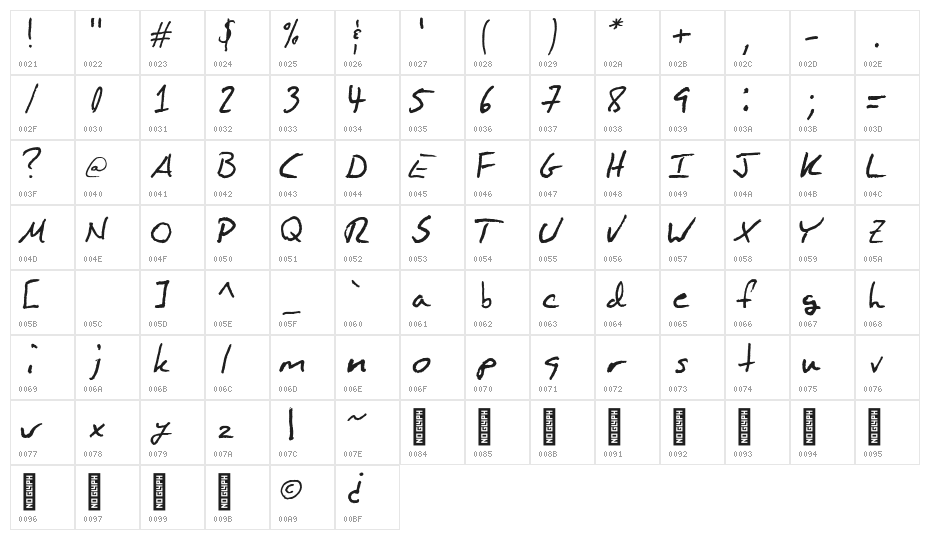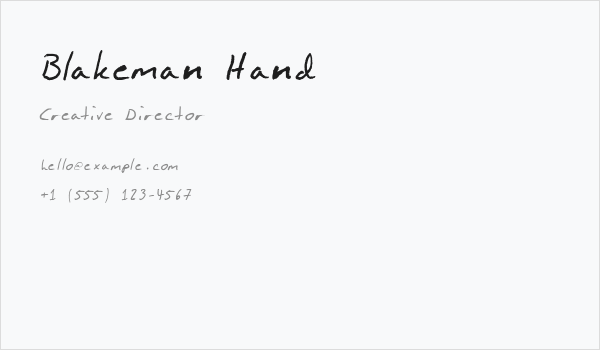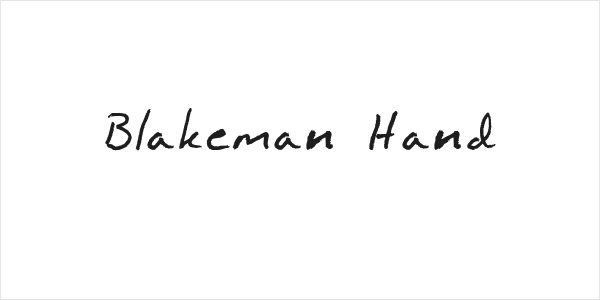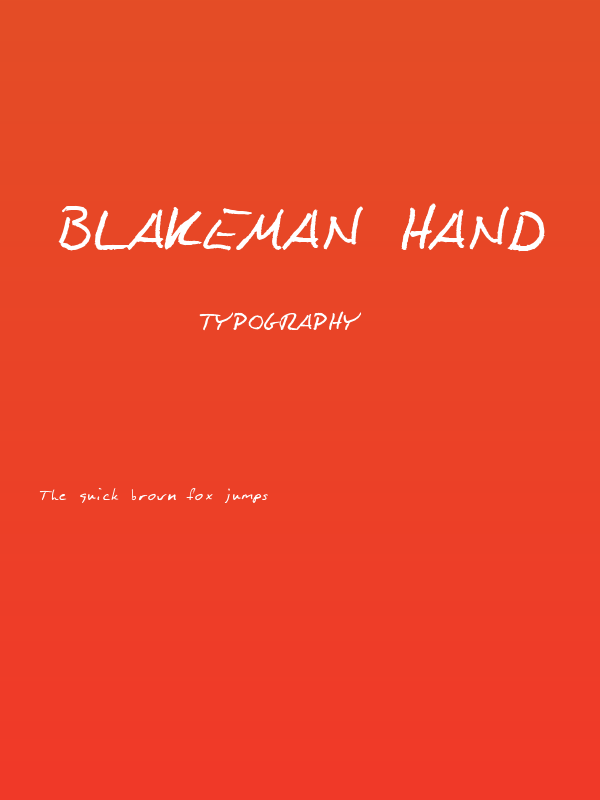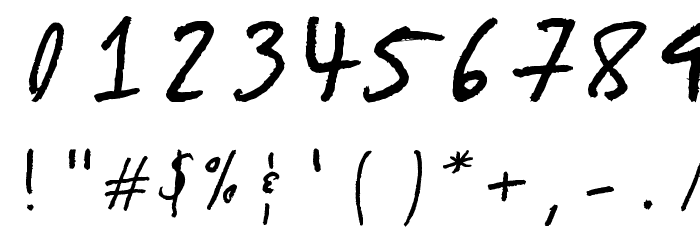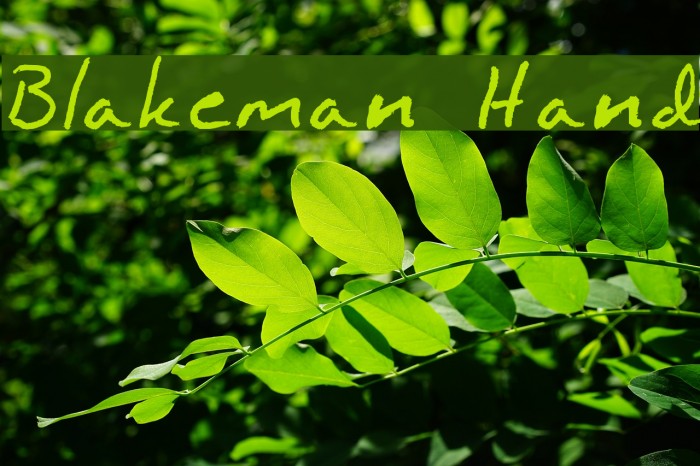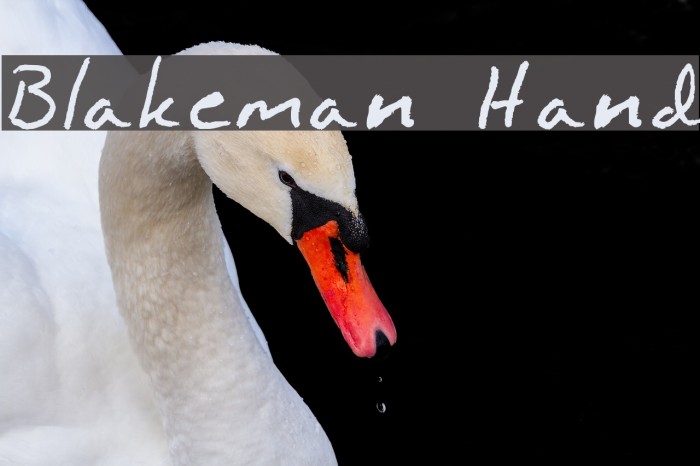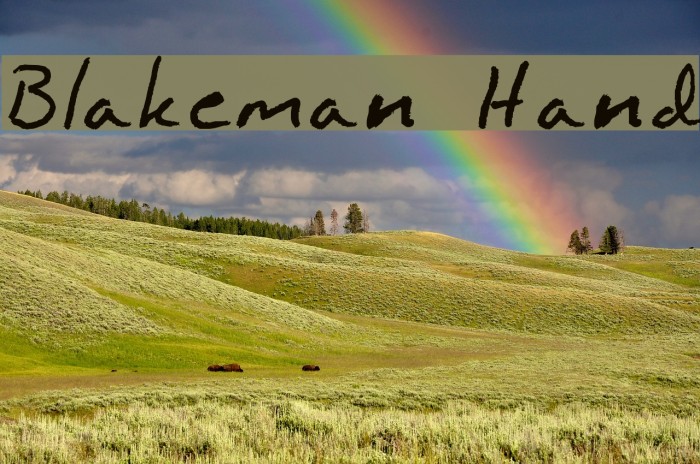
Blakeman Hand Font
Blakeman Hand Description
This font exhibits a casual, handwritten style with a natural flow and slight irregularities that give it a personal touch. The characters are slightly slanted, mimicking the natural inclination of handwriting. The strokes are uneven, adding to the organic feel, while maintaining legibility. Uppercase letters are bold and prominent, while lowercase letters are more fluid and connected. The numbers and special characters follow the same handwritten aesthetic, ensuring consistency across all elements. This font is ideal for projects that require a personal, informal touch, such as greeting cards, personal notes, or creative projects.
| Overall Style | Casual, Personal |
| Proposed Projects | Ideal for greeting cards, personal notes, creative projects, and informal branding. |